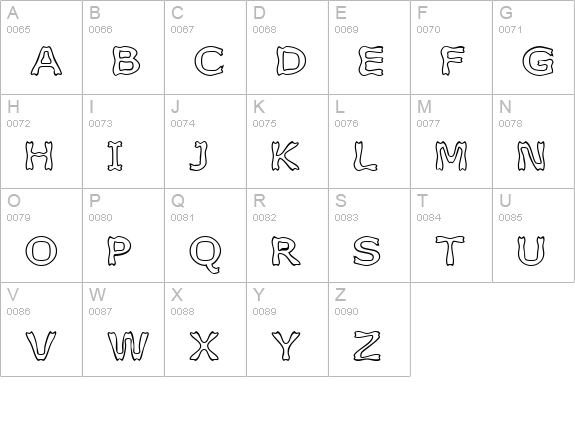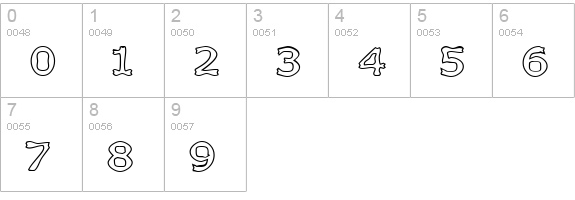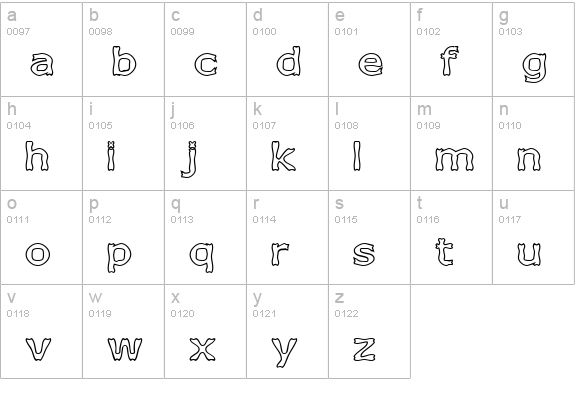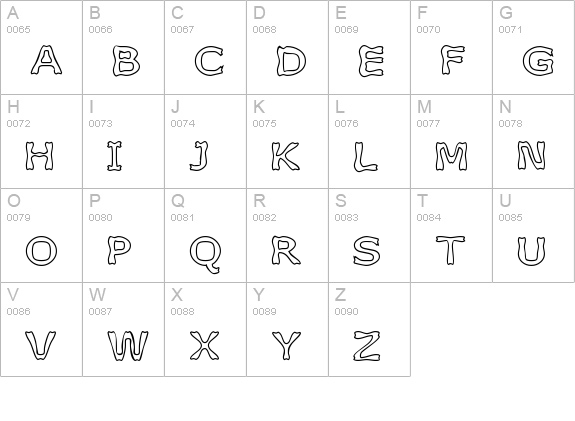
Boneribbon Outline Font Details
Boneribbon Outline font is a whimsical and playful typeface that brings a touch of charm to any design project. With its delicate lines and elegant curves, this font is perfect for creating eye-catching titles, headlines, and logos. The unique outline style adds a modern and stylish twist to any text. Best of all, Boneribbon Outline font is available for free download at FontsMarket.com. Whether you're working on a personal project or a professional design, this font is sure to make a statement. Don't miss out on the opportunity to add this delightful font to your collection today!